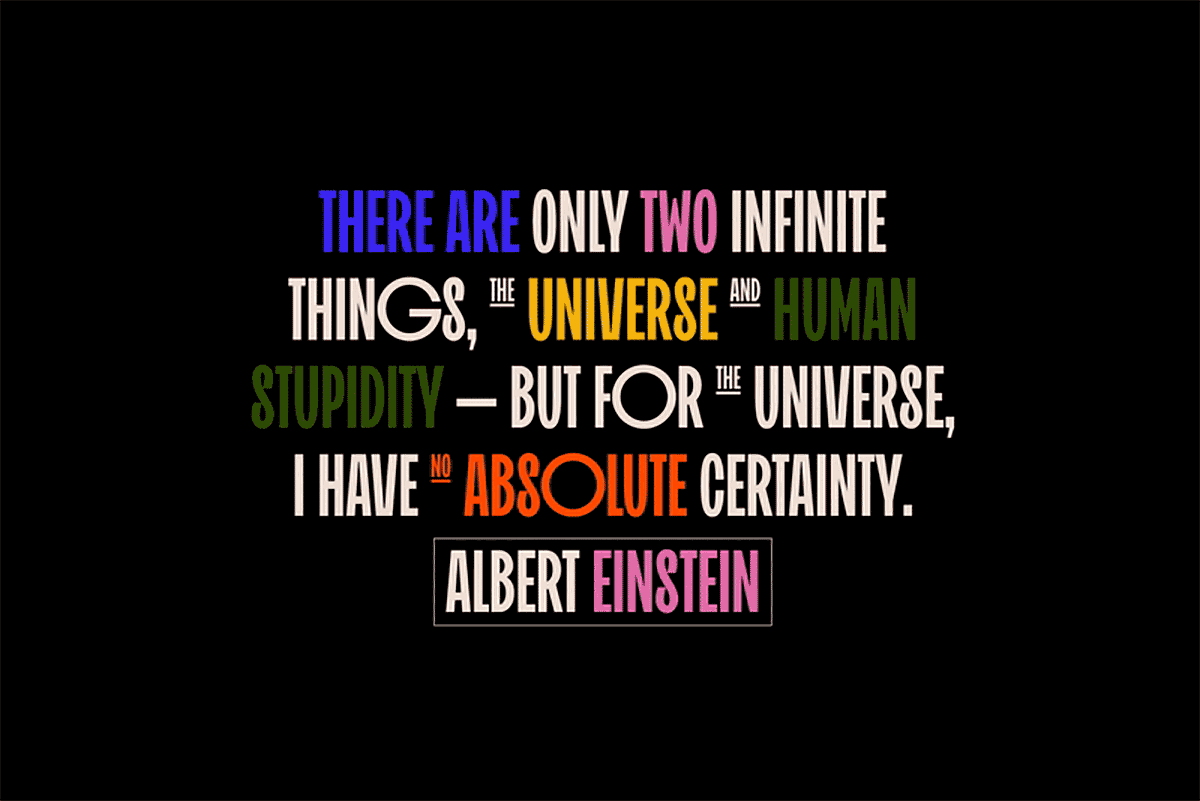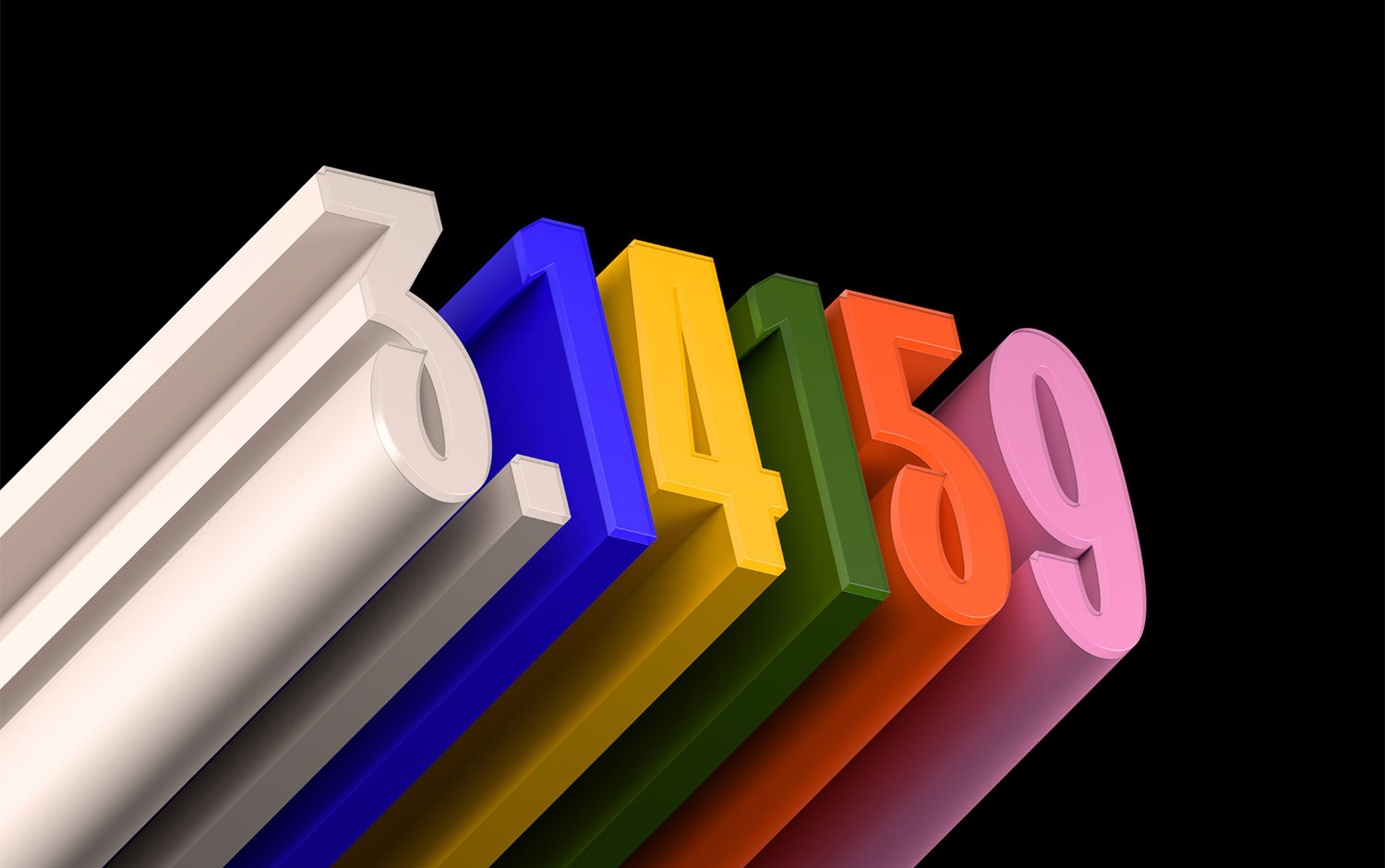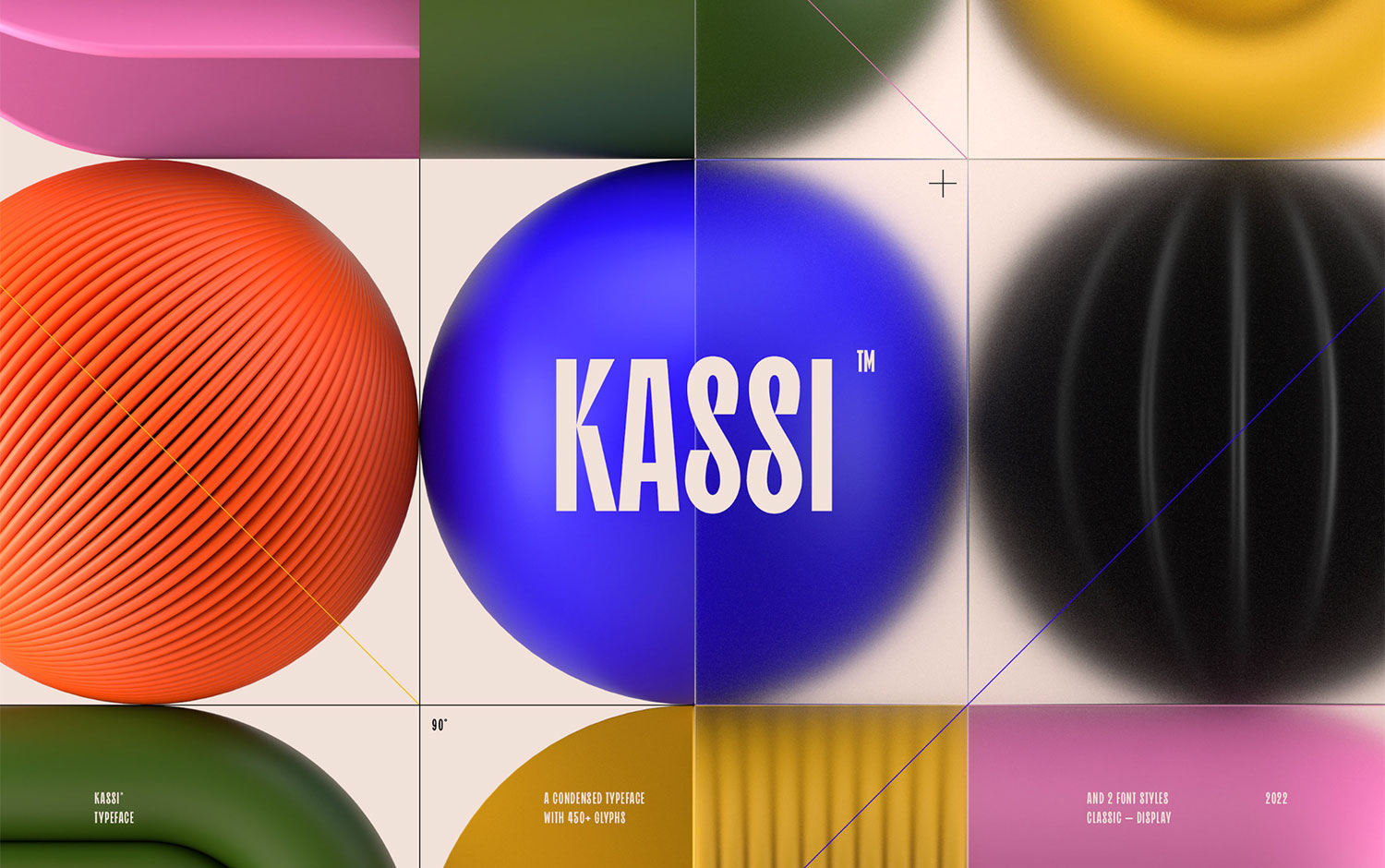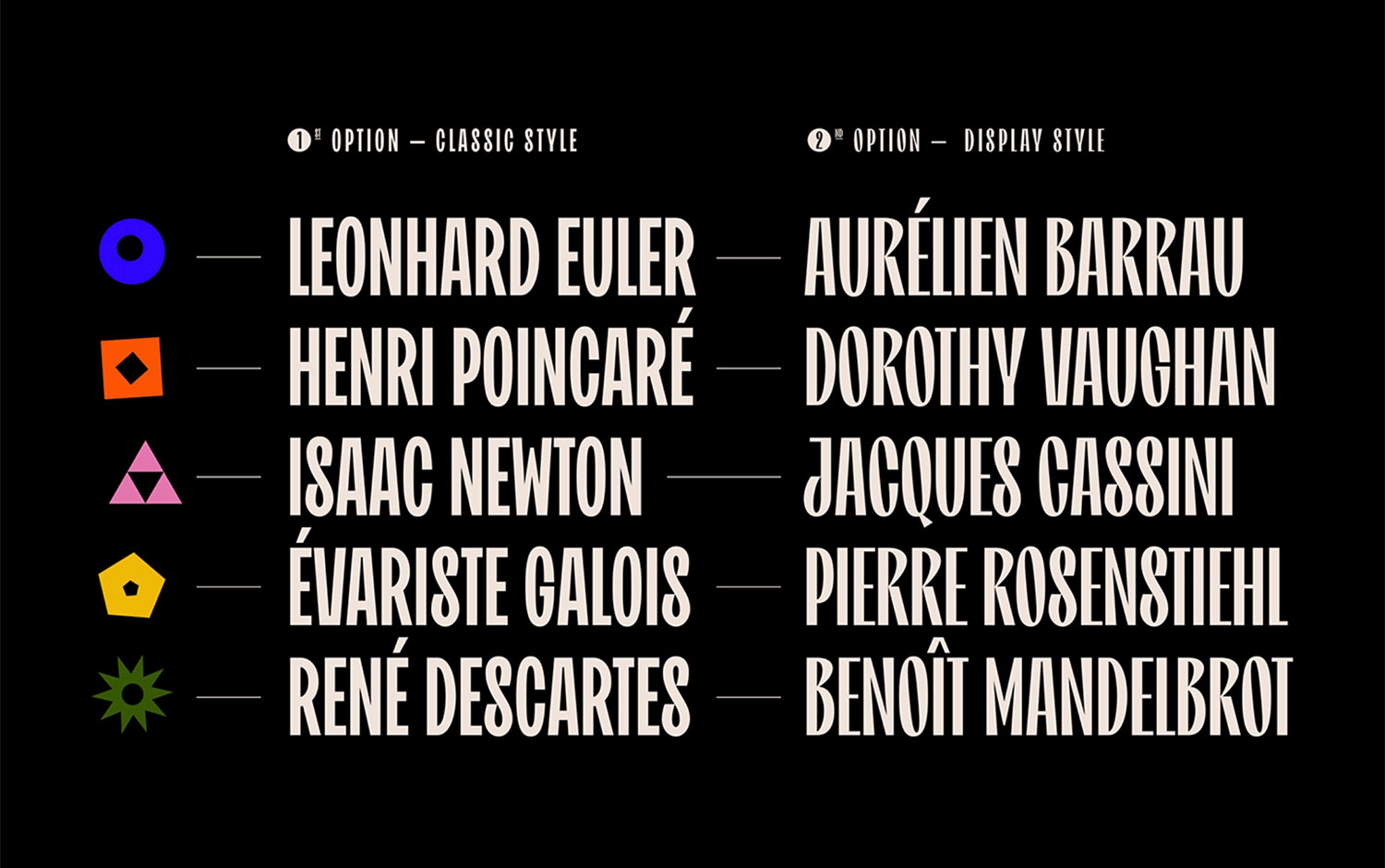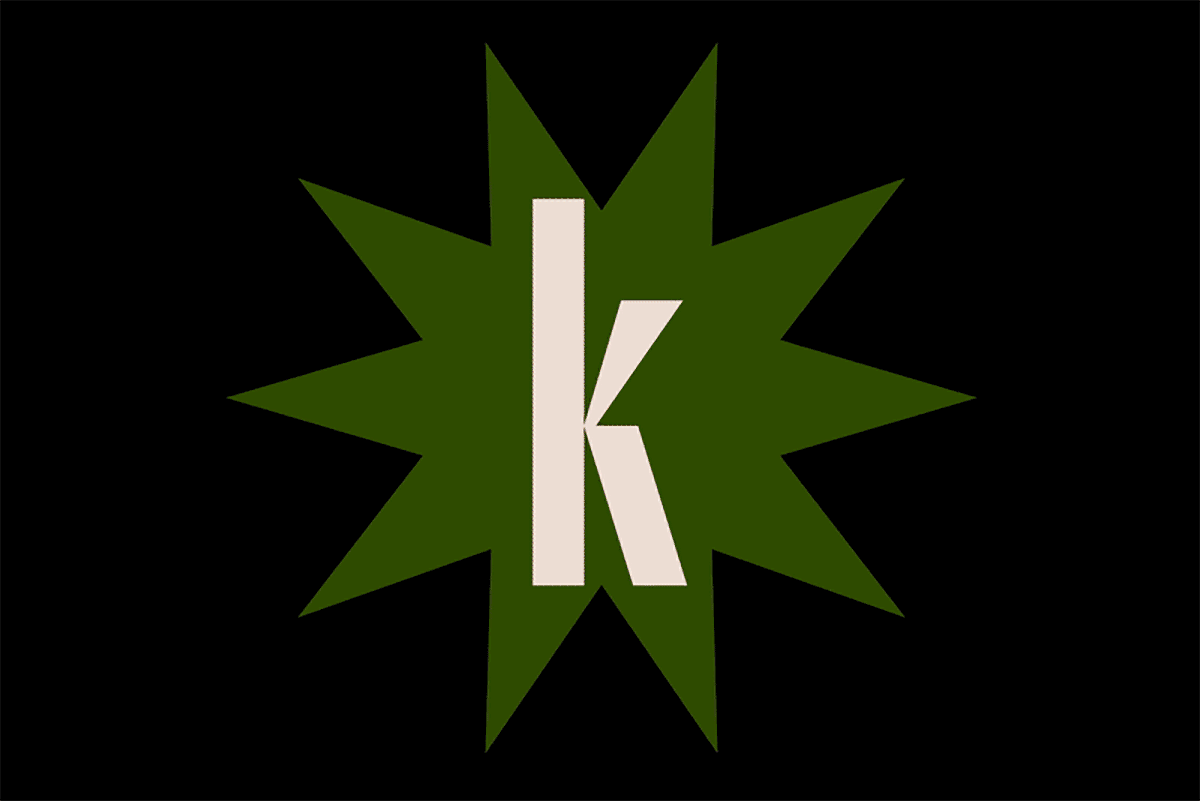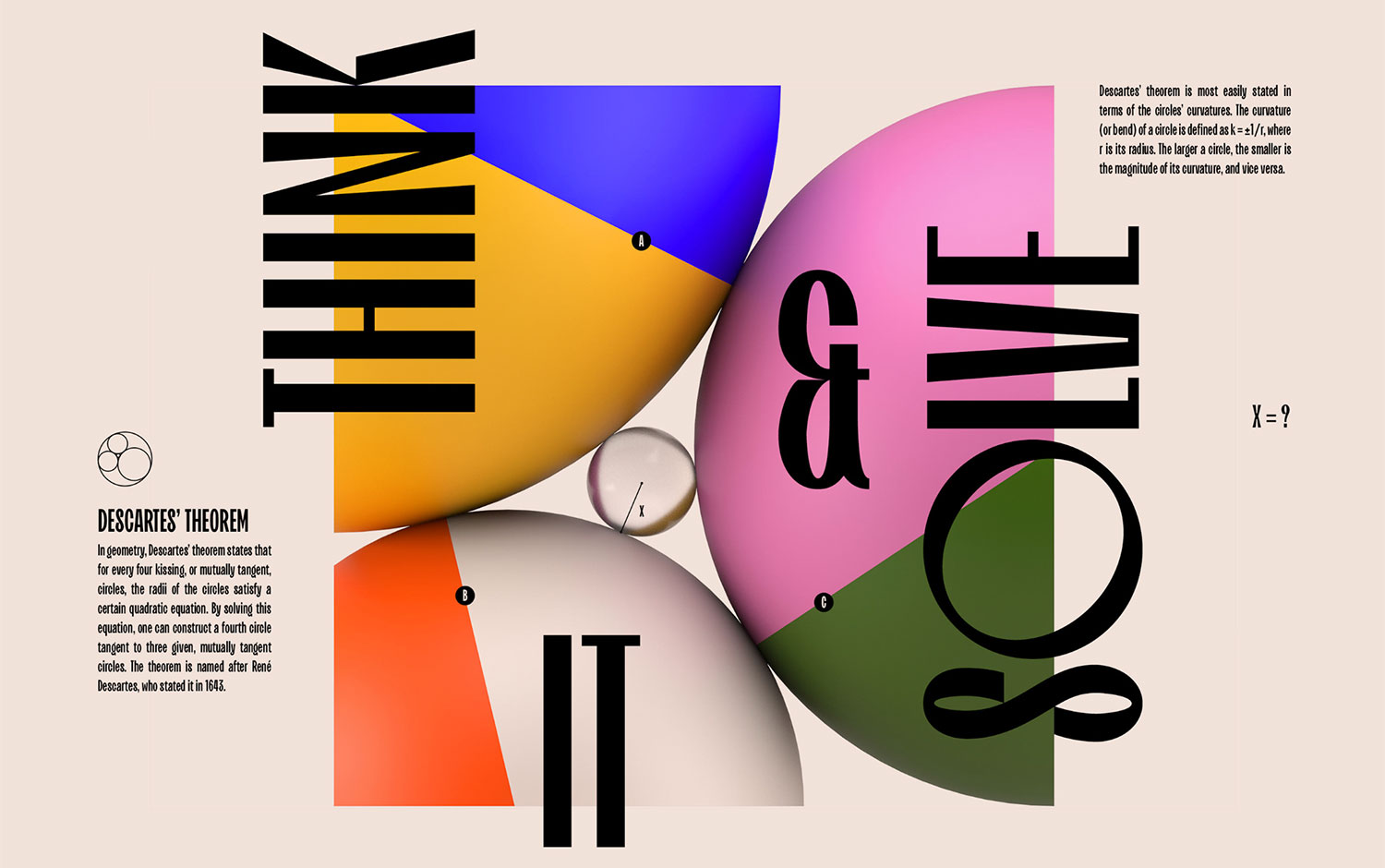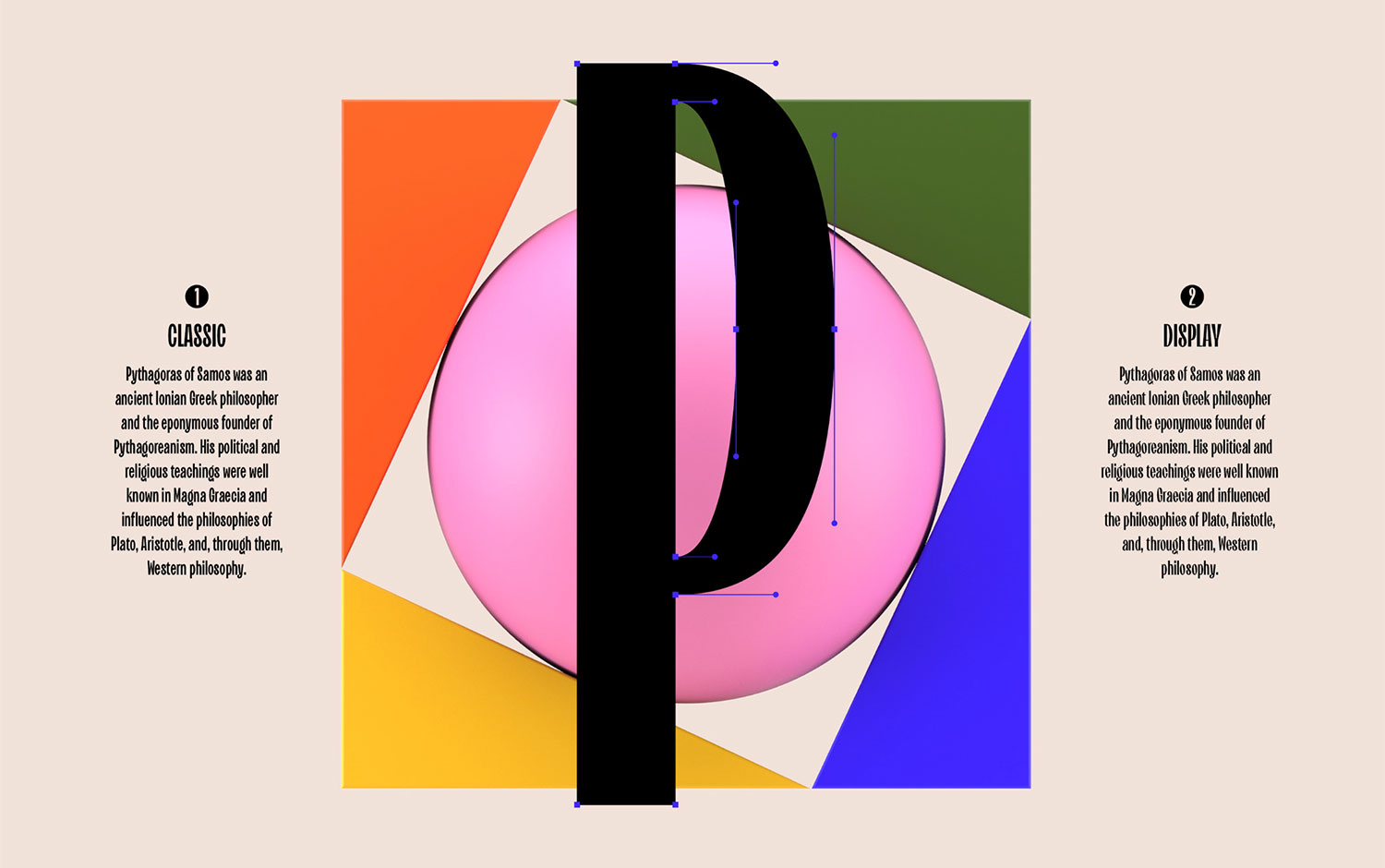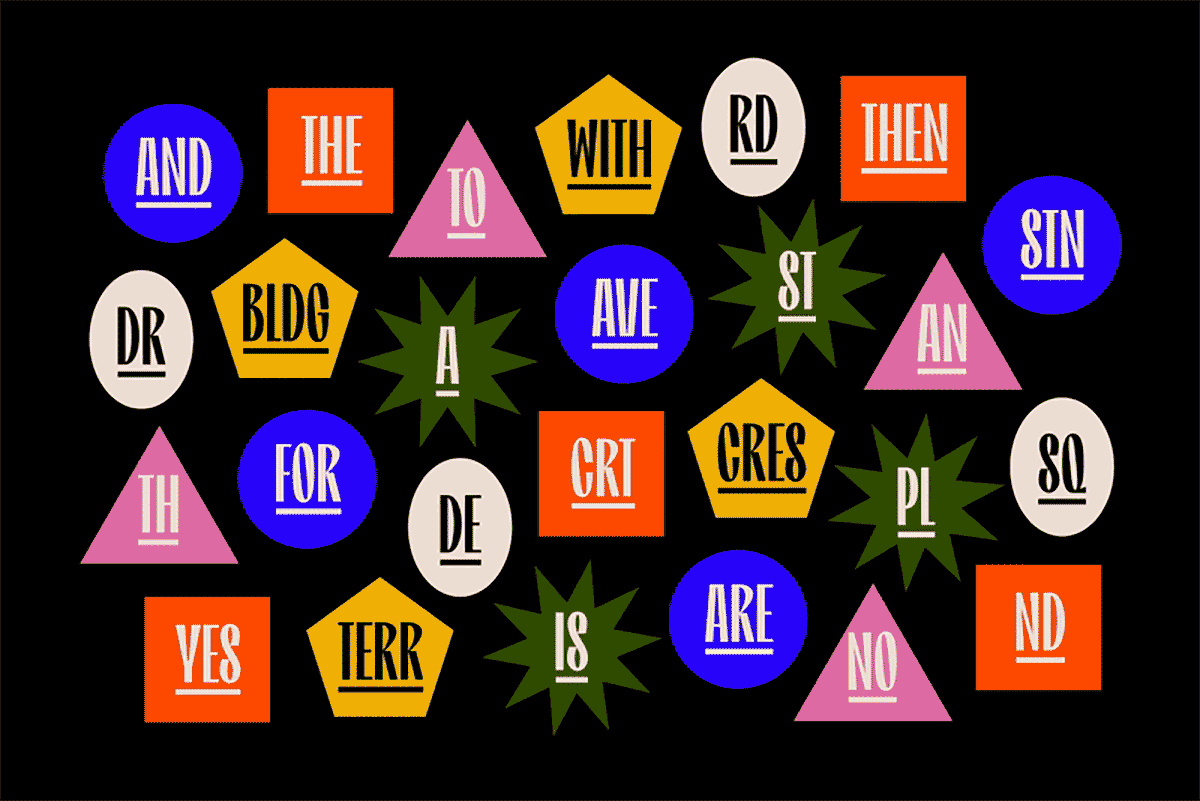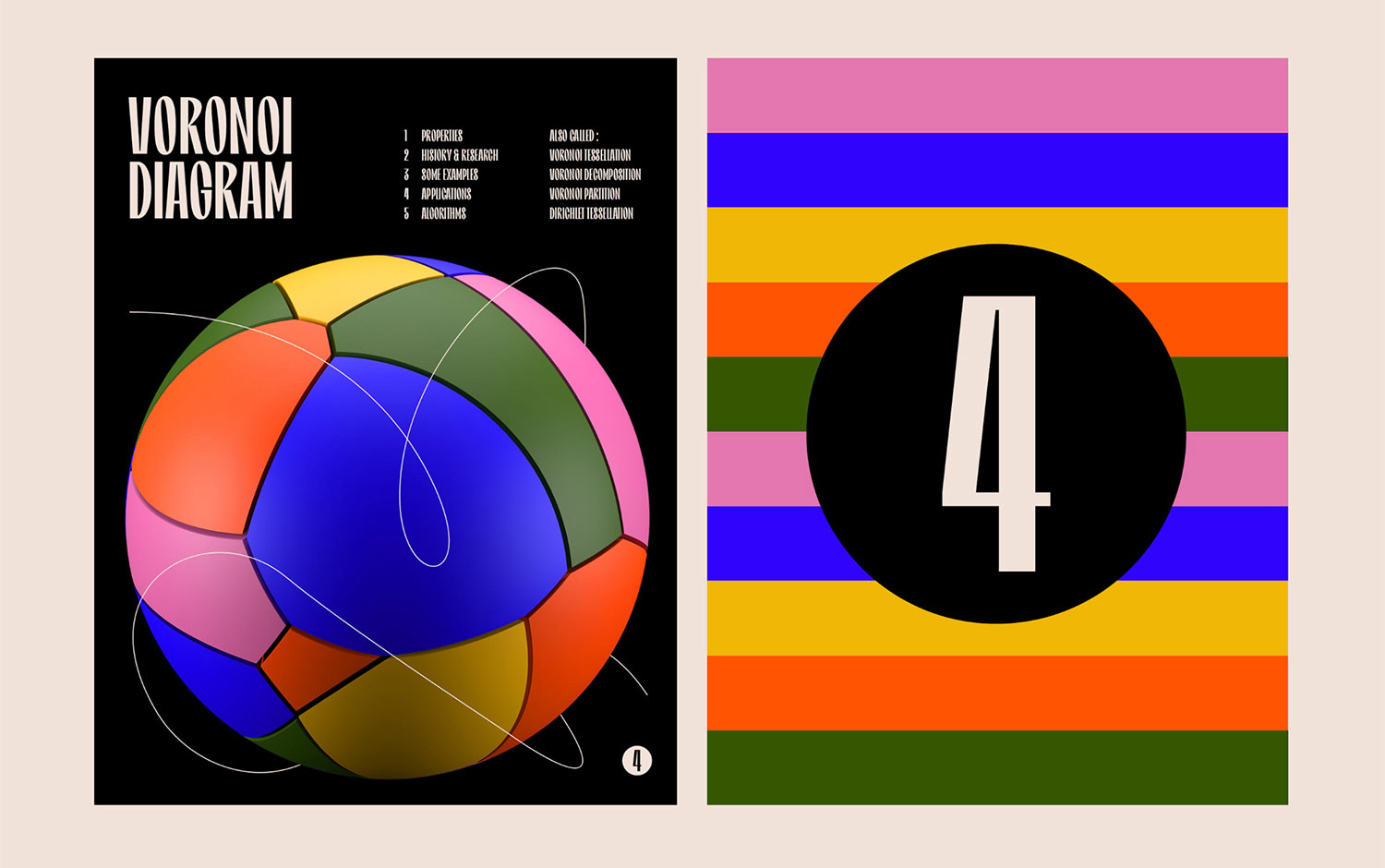
Kassi Typeface | Mathematics involved with font design
Remember those old days at school when the maths class seem to never end? Well, today, we're bringing back some of those names that might sound familiar. There are no mathematical equations involved, for granted. Not disconnected from digits, we're back with the Type Series. Meet Kassi Typeface, a condensed typeface inspired by the scientific and mathematical world designed by Almarena.
Almarena, a French design duo, is responsible for Kassi's existence. Tons of hard-working hours and decision-making involves a new font's development. Well-known Rene Descartes stated that by dividing each difficulty into as many parts as is feasible and necessary to resolve it. Indeed, we believe this creative community knows the importance of the macro view when starting a project. The exercise of breaking it down into daily, small actions will reflect results in the long term.
Kassi is available in 2 styles: The Classic version, simple and readable with a touch of originality, and the Display version, more elegant and contrasting. Plus, it's compatible with 93 languages and includes other alternatives. Quoting an Enlightened thinker, Sir Isaac Newton, you have to make the rules, not follow them. Actually, this is a valuable concept not only for type design; but for many creative areas. Consistency shouldn't be scarce in a designer's personality. In other words, sticking to your vector idea or concept and acting or decision-making should stick to it.
Paraphrasing Leonhard Euler, transcendental typefaces transcend the power of type approaches ;) For instance, Kassi takes place in both legible and ornamental worlds. Jérémie Gauthier and Romain Billaud built a stunning font design and came up with a magnificent presentation, super eye-catchy. They challenge us to solve some math problems and enjoy their display. Though, we're still eager to deduce the hidden structure and vector idea for this beautiful condensed typeface.
At last, here are some inspirational quotes from some of the mathematicians mentioned ut supra to think over this day.
Except for our own thoughts, there is nothing absolutely in our power. Rene Descartes
Live your life as an Exclamation rather than an Explanation. Sir Isaac Newton